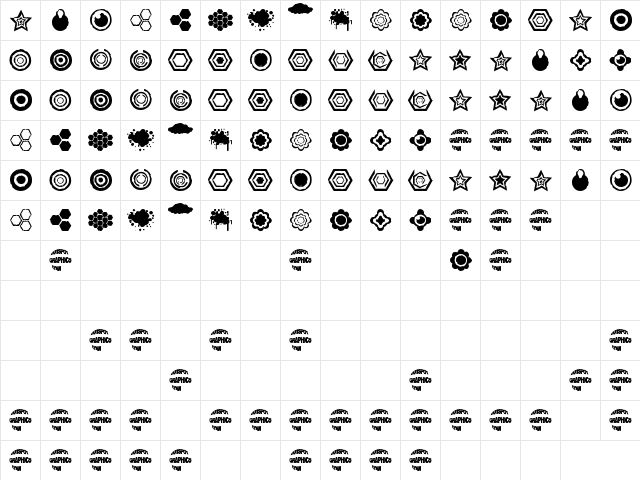
Dingbatz Formz DSG Regular
Design Context for Dingbatz Formz DSG Typeface
Dingbatz Formz DSG is a composed and adaptable typeface that performs quietly and consistently across a wide range of design contexts.